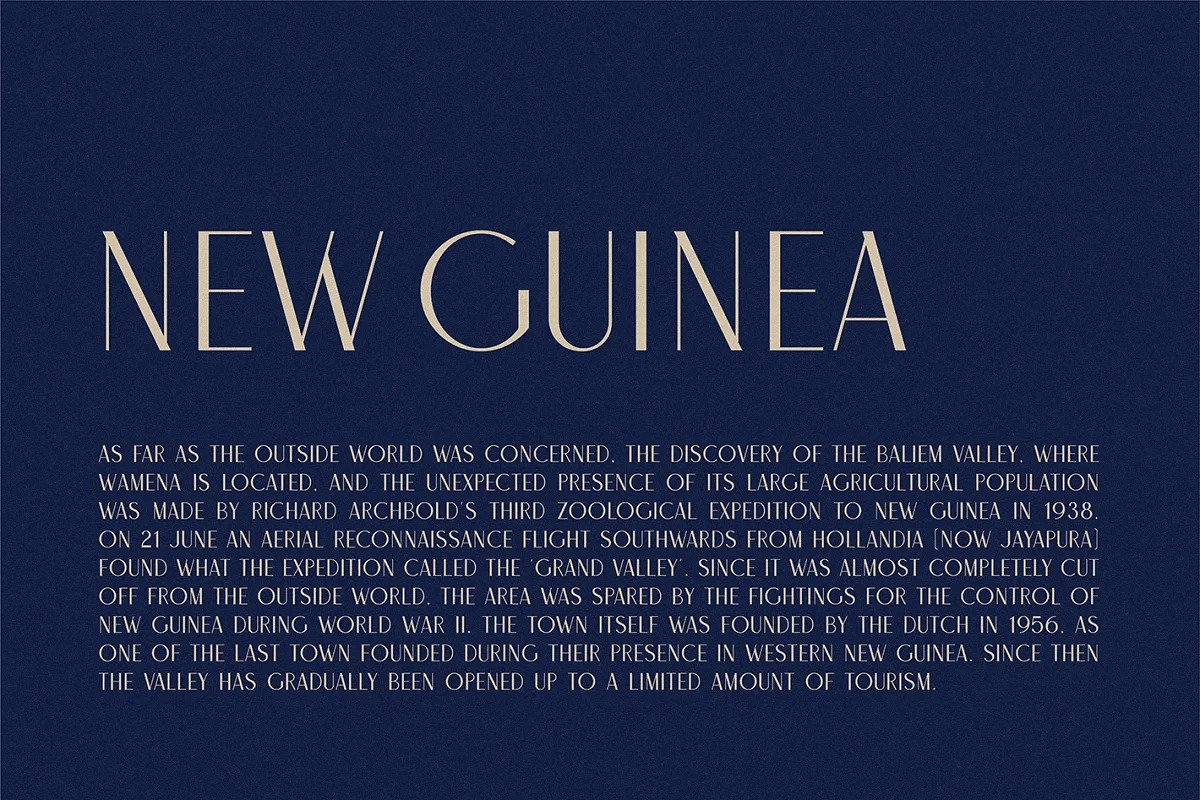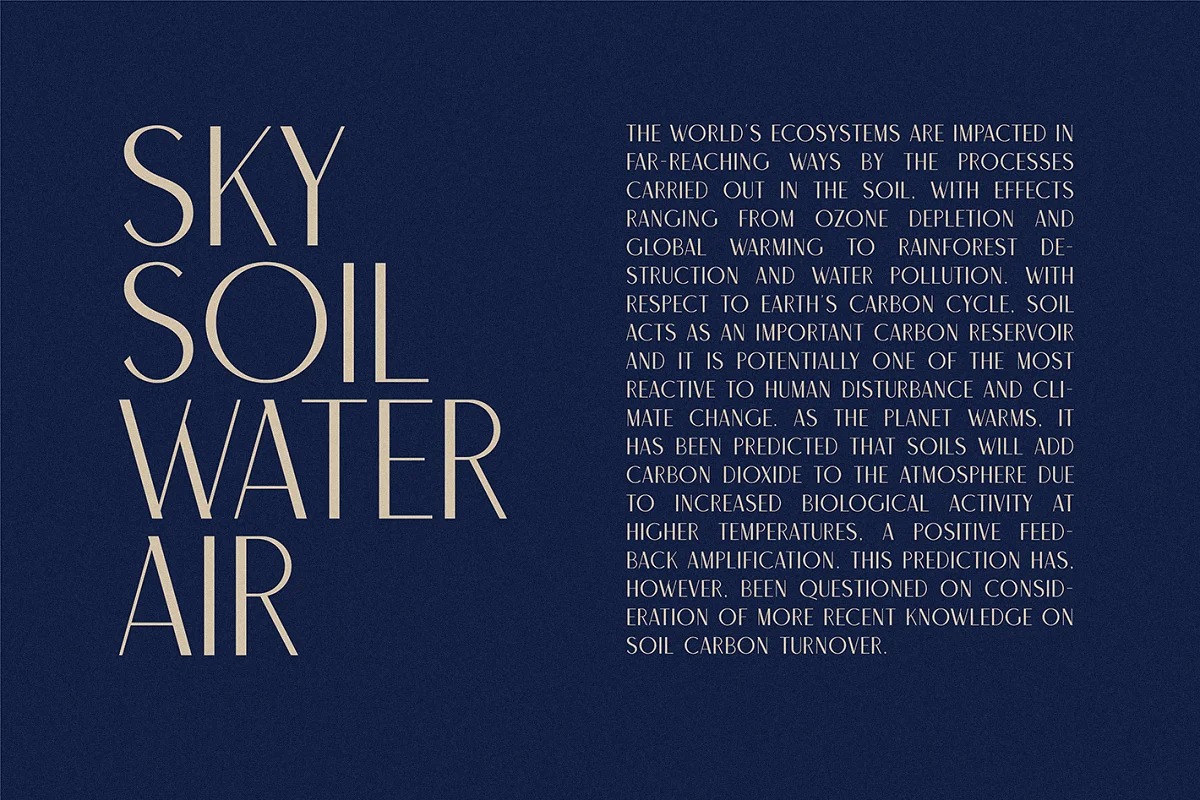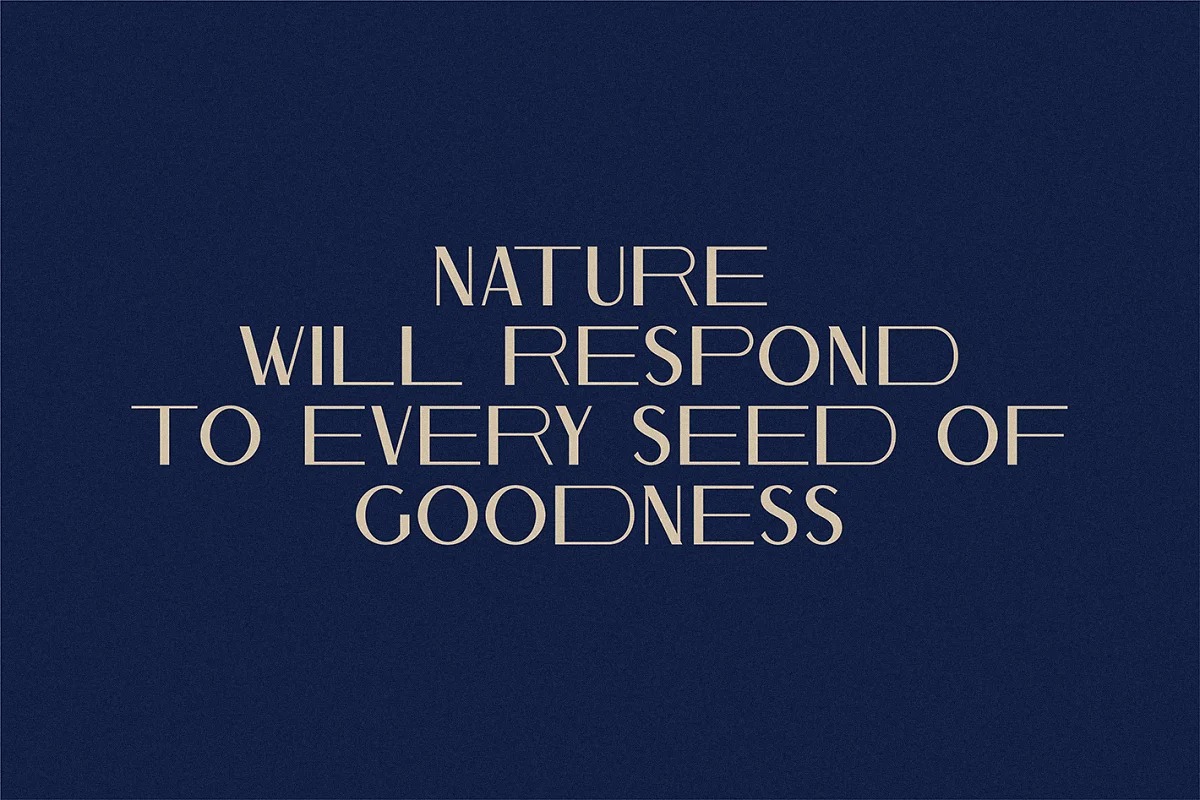
Qhairo Font
Qhairo Sans Serif Font
It’s a modern, luxury, fashionable display sans serif font crafted & designed by OWL KING. Font family contains several sizes, to make it easier and use in design, there are several character letters that can be used as accents when used in a title in making articles, brochures and even for web pages, and very easy to use.
Qhairo also carries letters ranging from thin to thick and is also supported in the development of various languages.